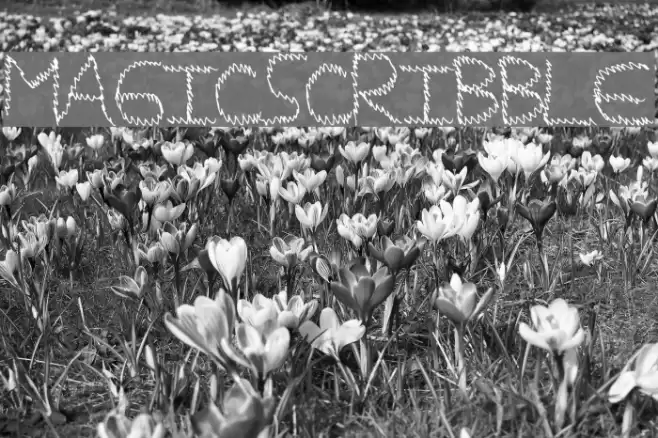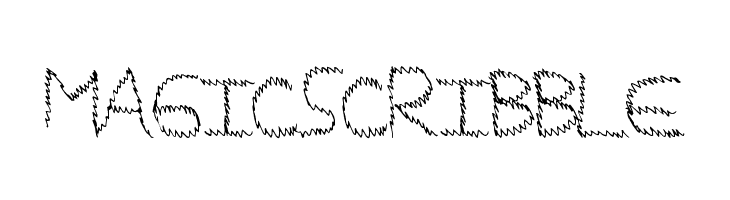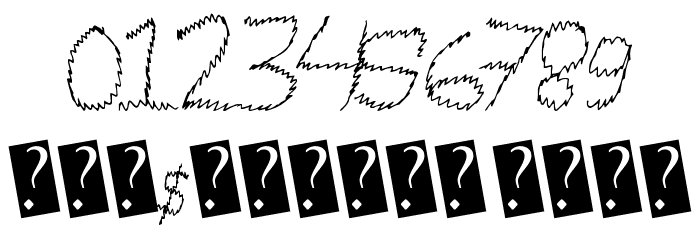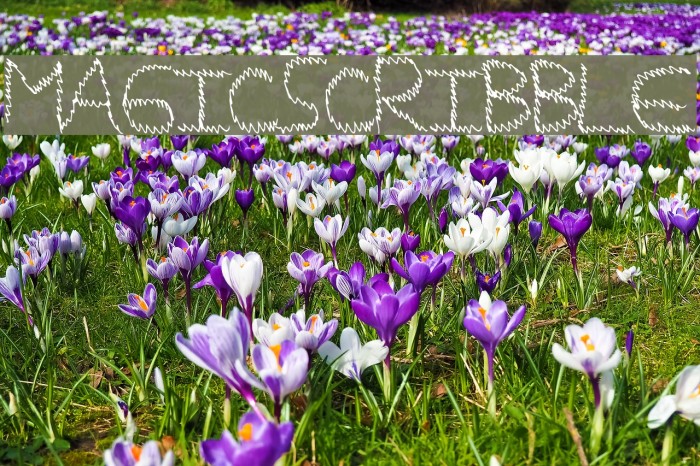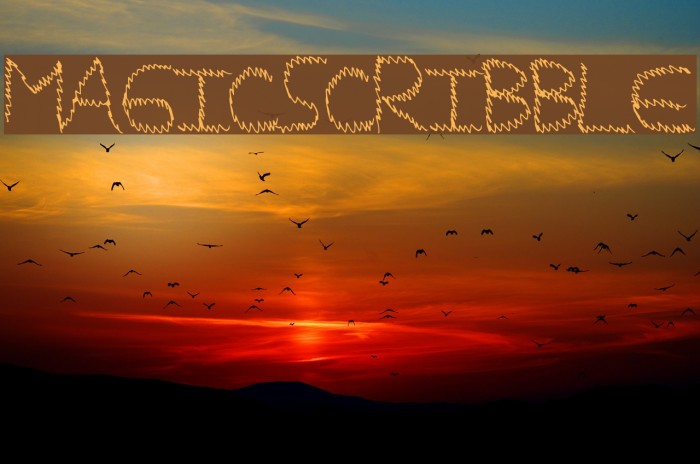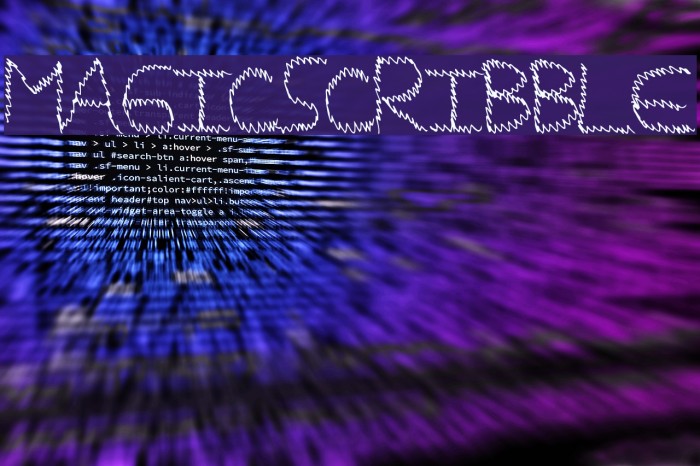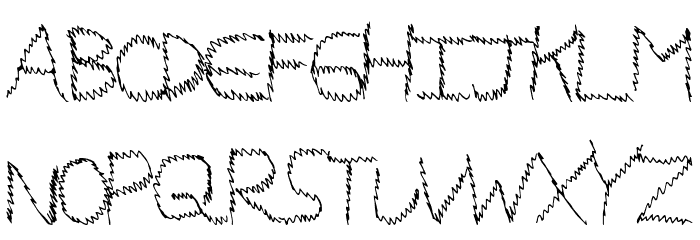
MagicScribble Font
MagicScribble Description
This font features a playful and whimsical design, characterized by its zigzag, scribble-like strokes that give it a dynamic and energetic appearance. The letters are crafted with a consistent wavy pattern, creating a sense of movement and spontaneity. Each character maintains a uniform height and width, ensuring readability despite the unconventional style. The font includes both uppercase and lowercase letters, numerals, and a selection of special characters, all following the same scribbled aesthetic. Its unique style makes it stand out, perfect for projects that require a touch of creativity and fun.
A playful, scribble-style font with zigzag strokes and a dynamic appearance from Uncategorized fonts.
- Proposed Projects: Ideal for children's books, creative posters, playful branding, and artistic projects.
- Overall Style: Whimsical, Playful